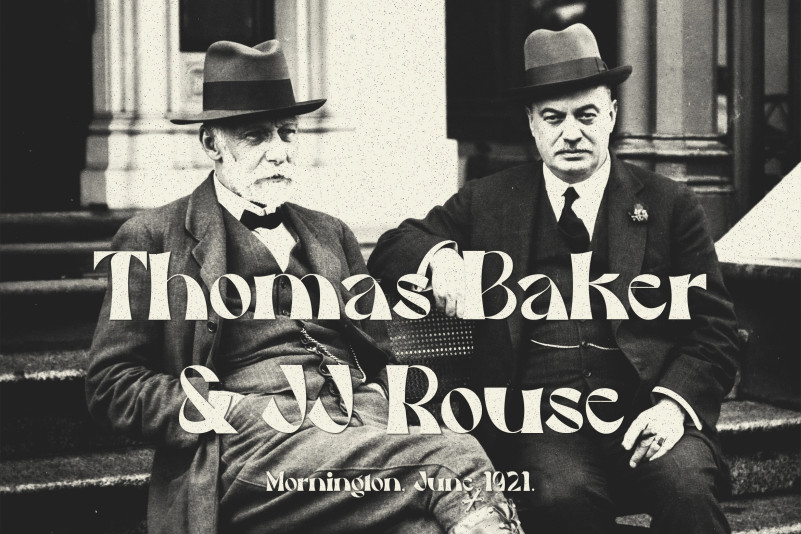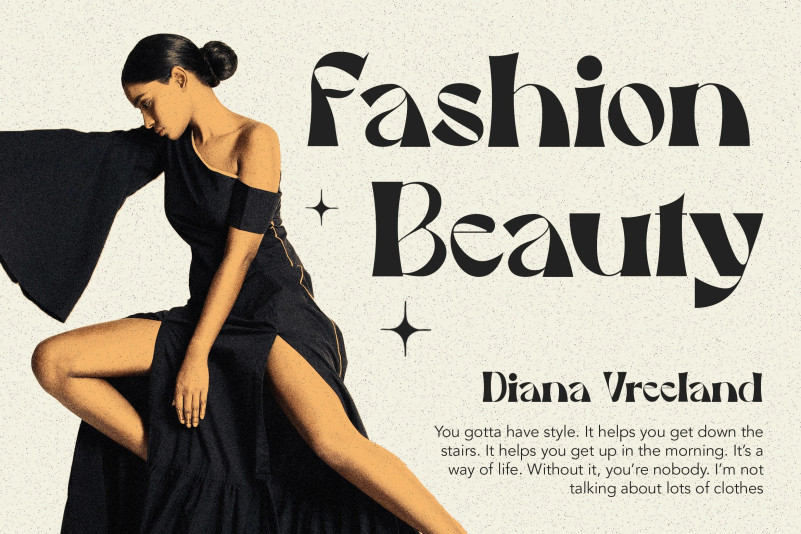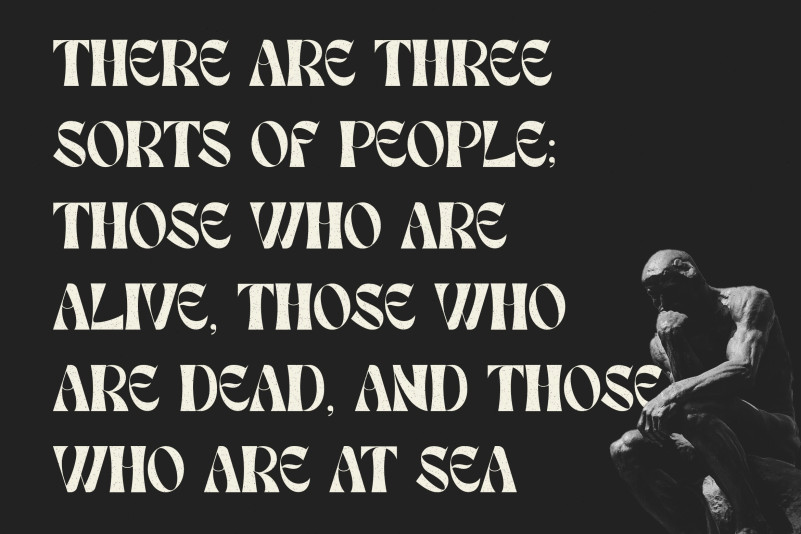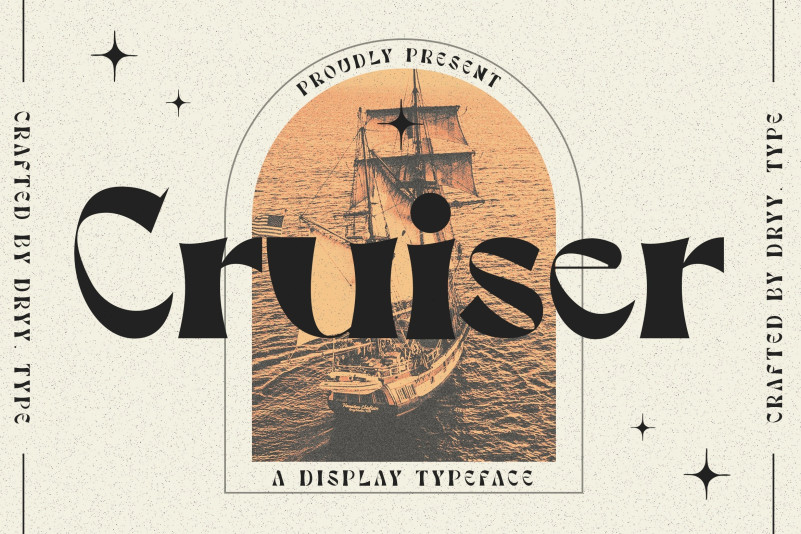
Cruiser Display Font is a retro display typeface that is currently a trend. Inspiring from retro style typography. This font is perfect for a design that makes it more attractive and playful. made with a very good level of aesthetics making this font suitable for book cover, poster, packging, merchandise, logotype and much more.